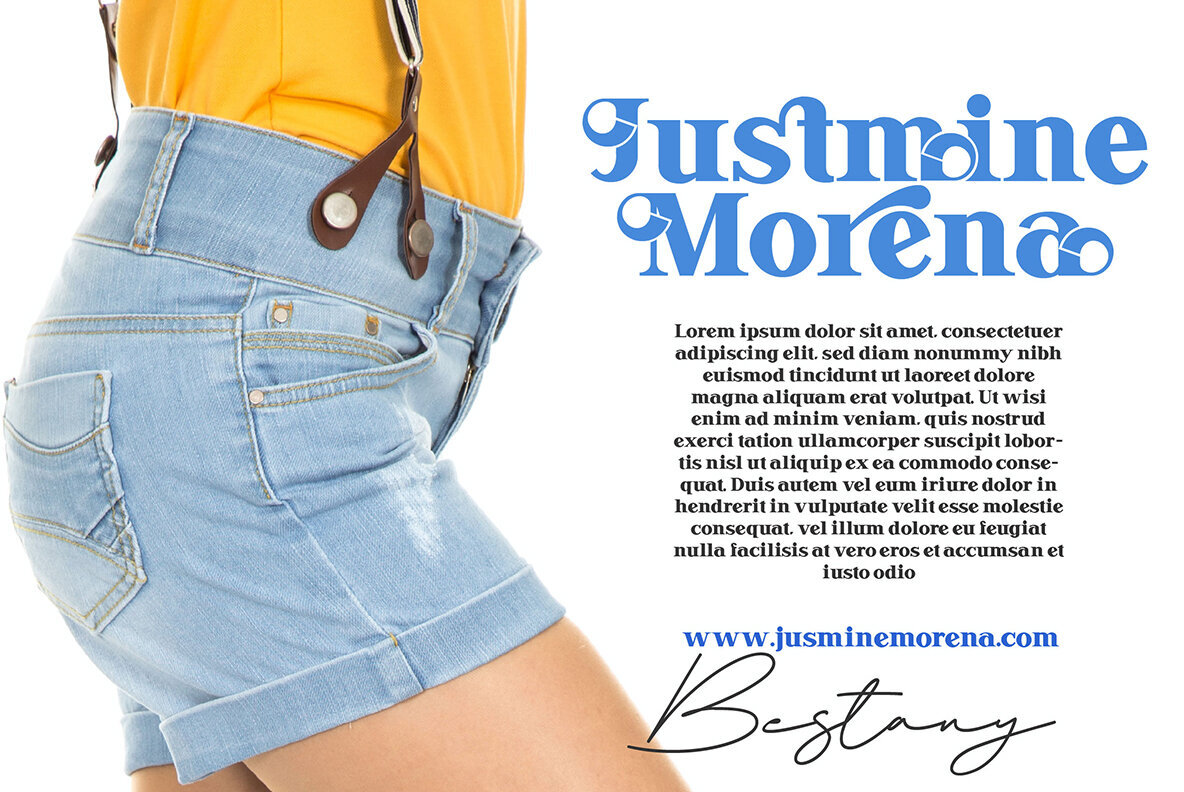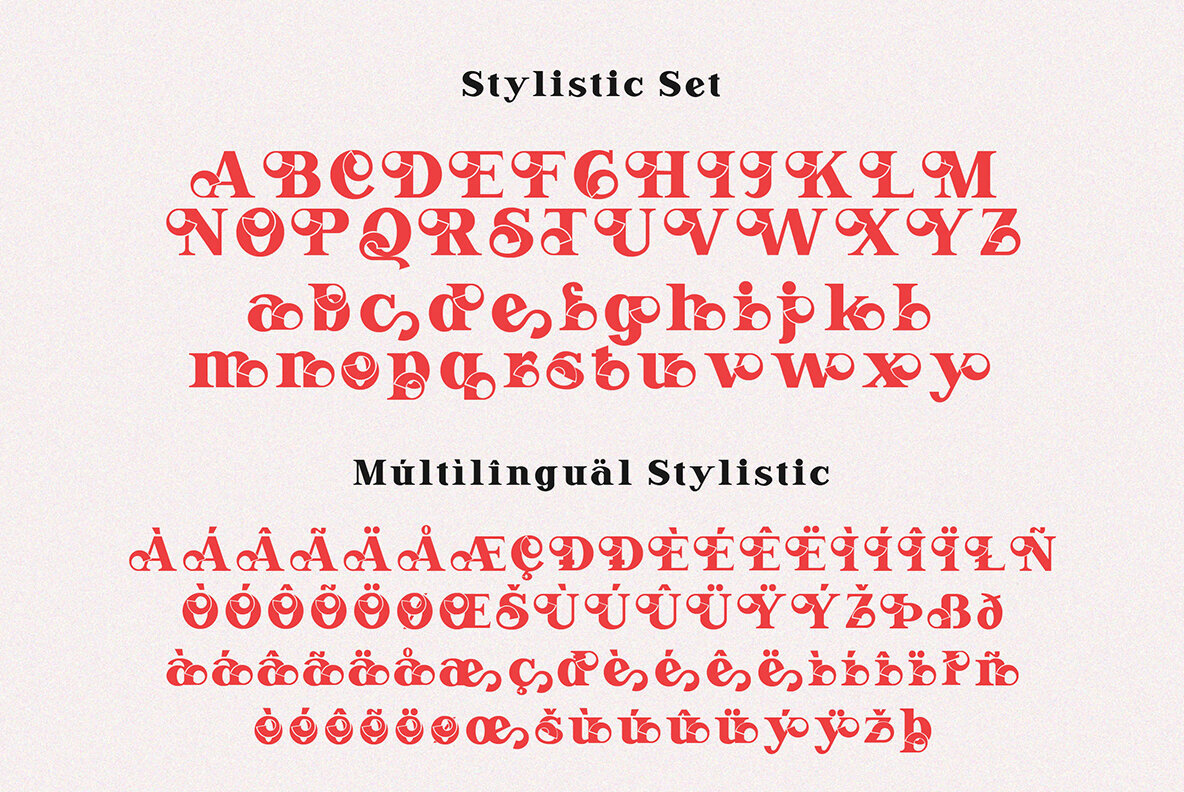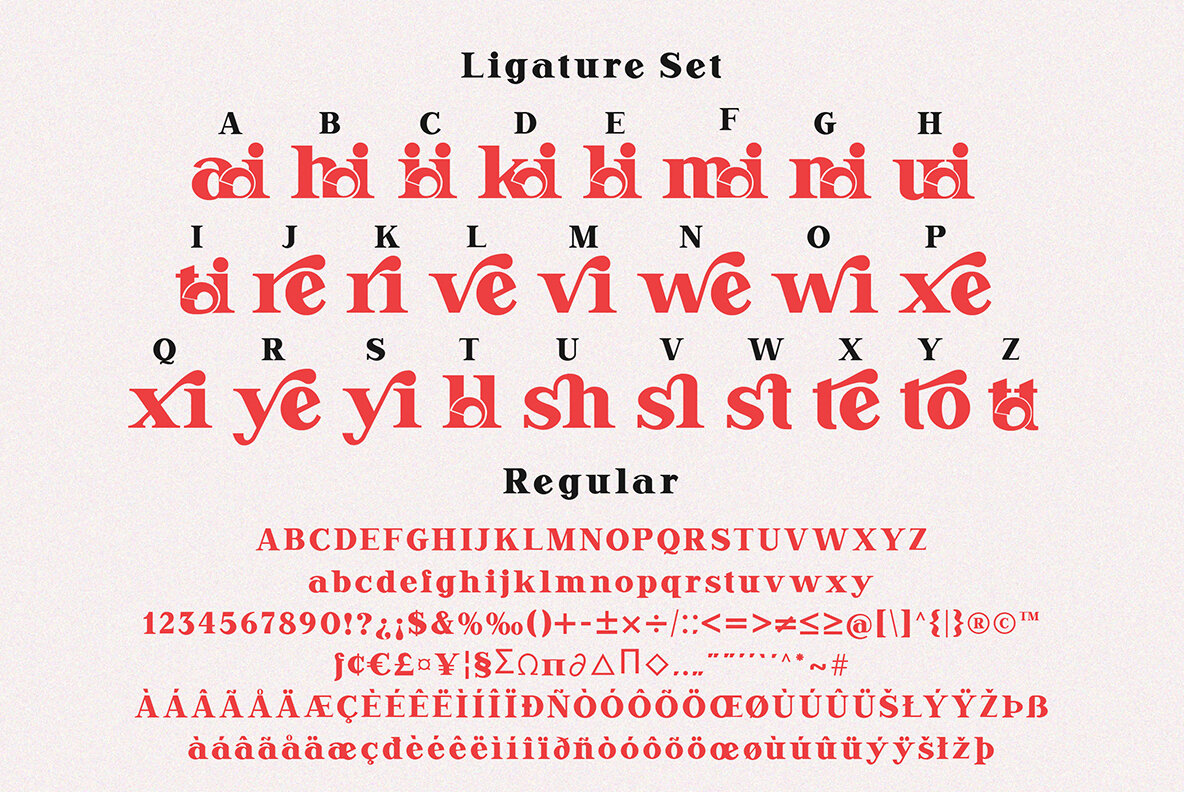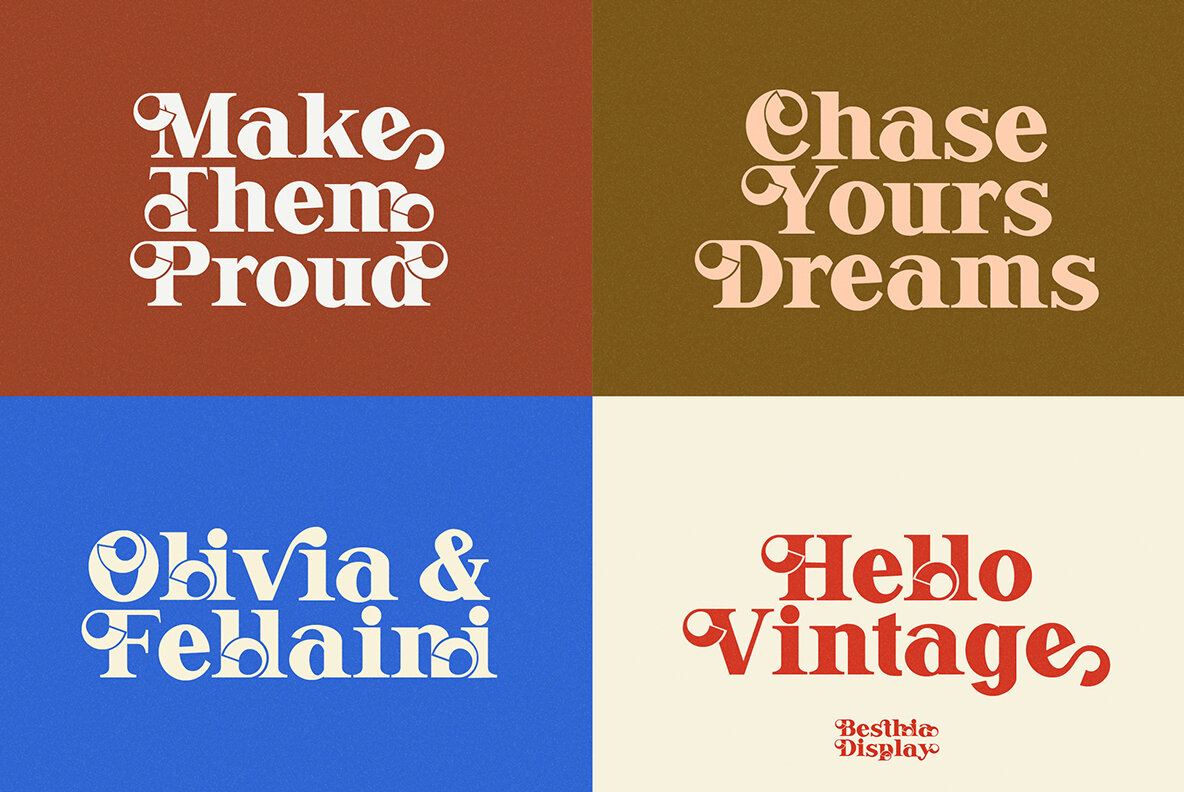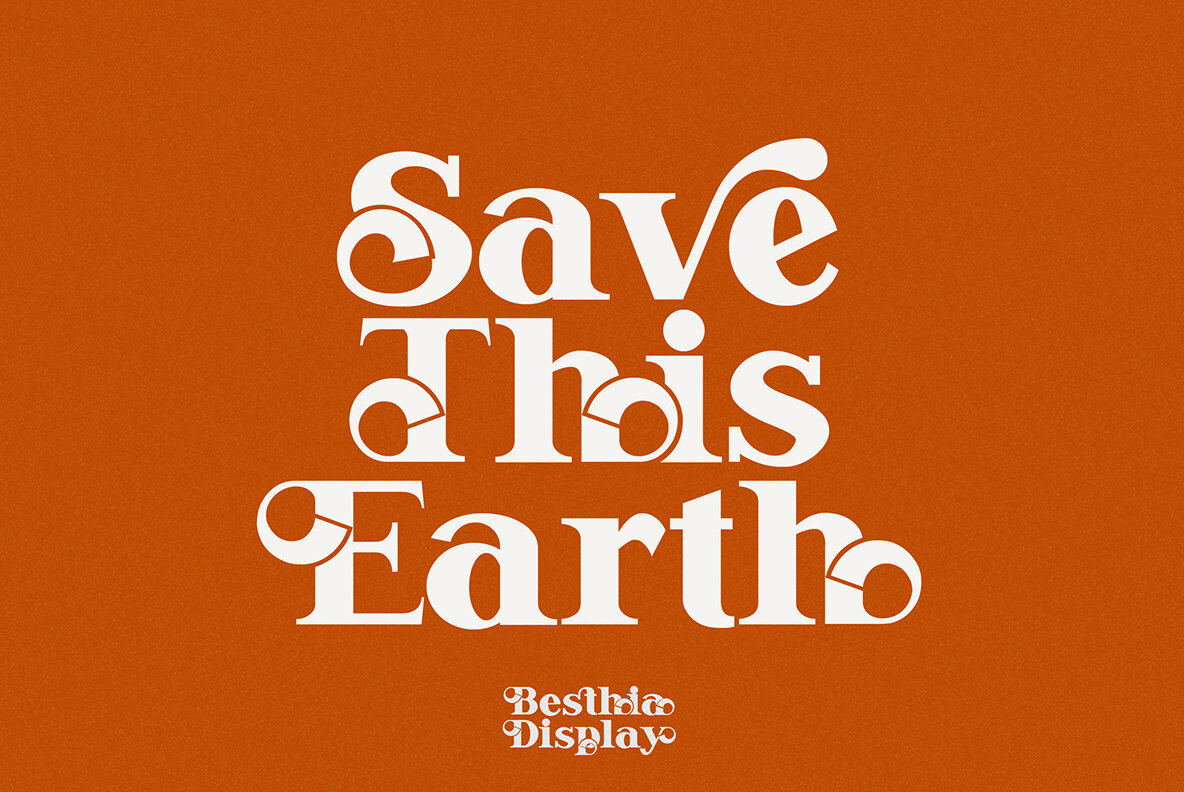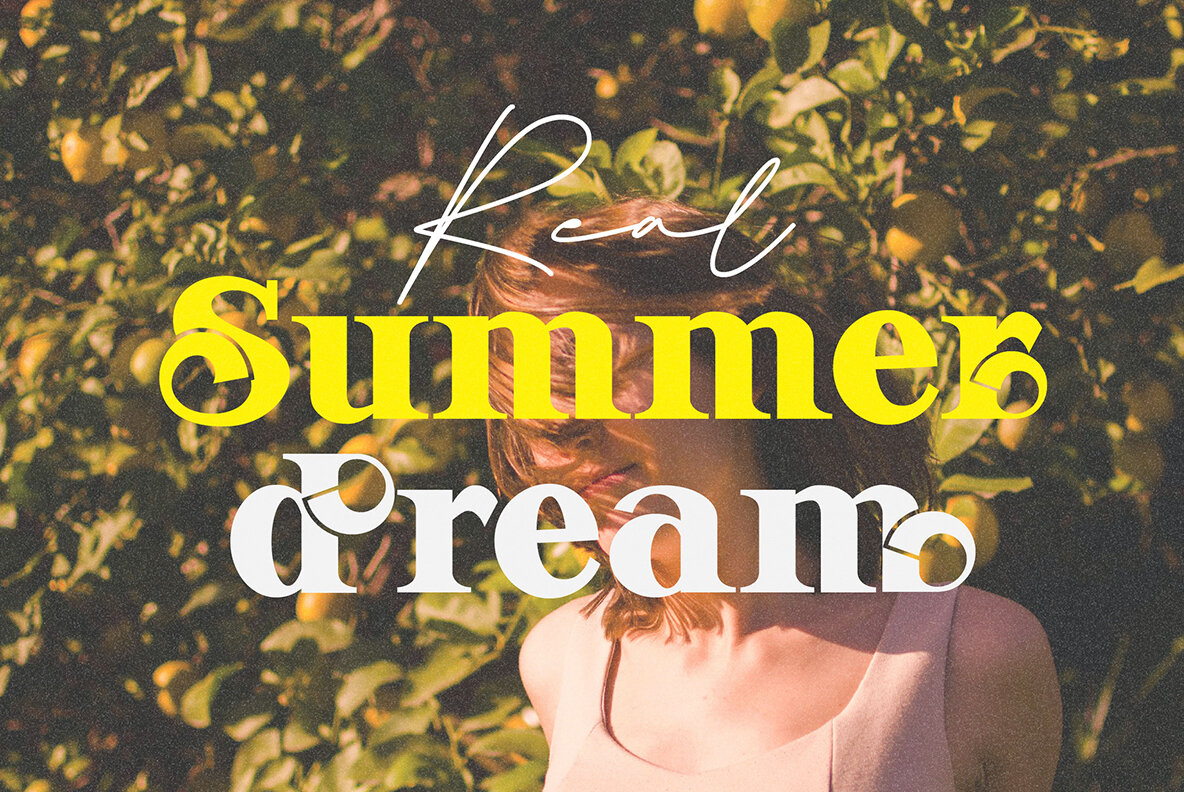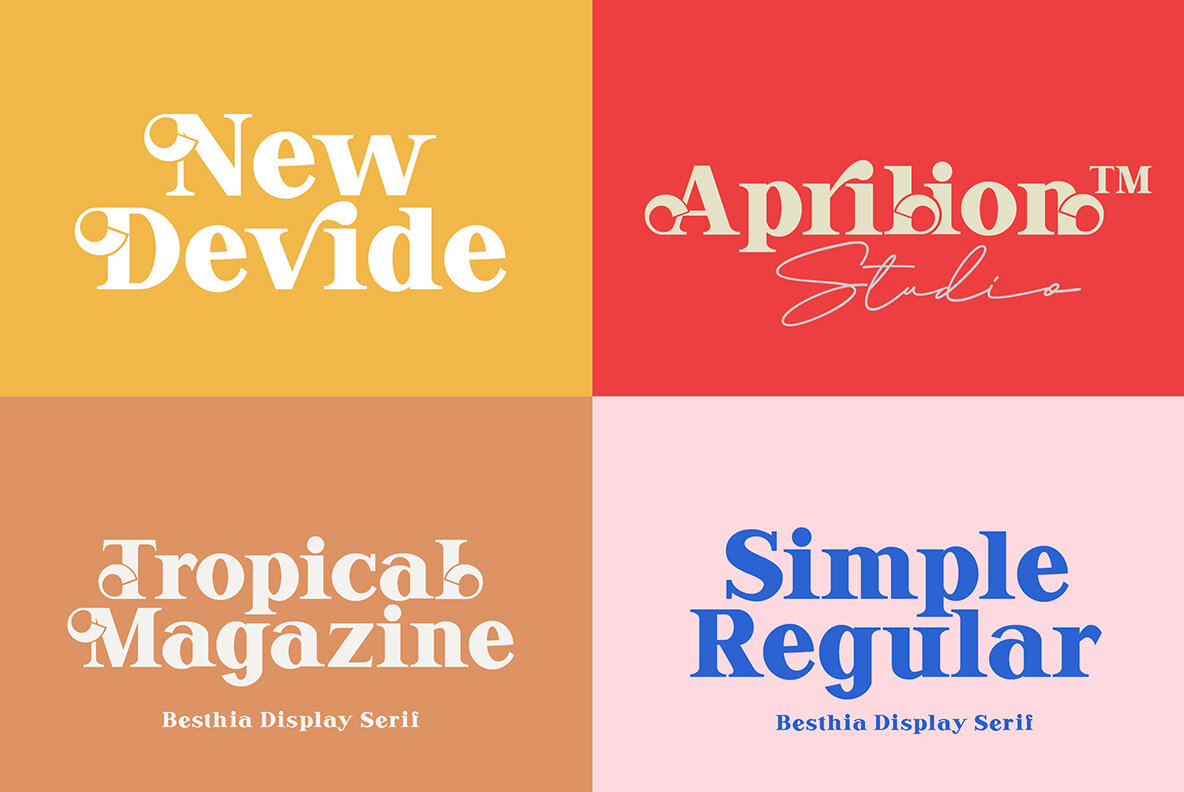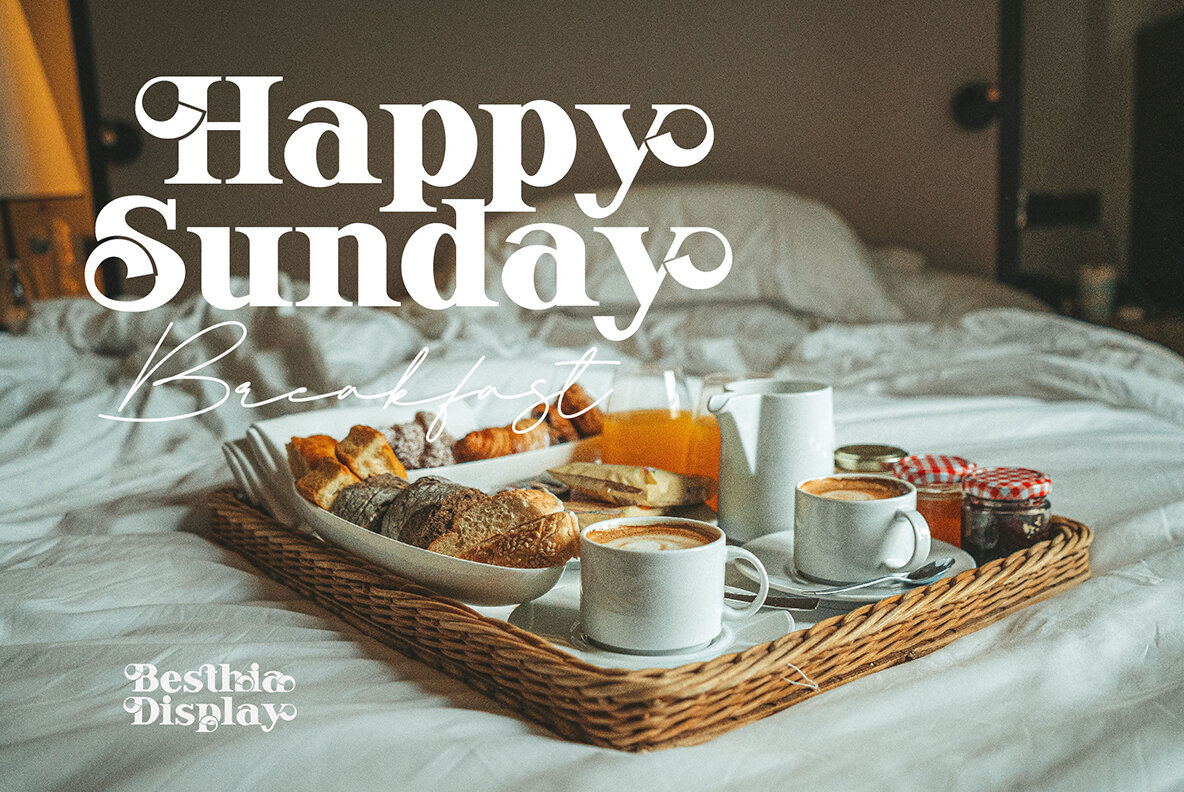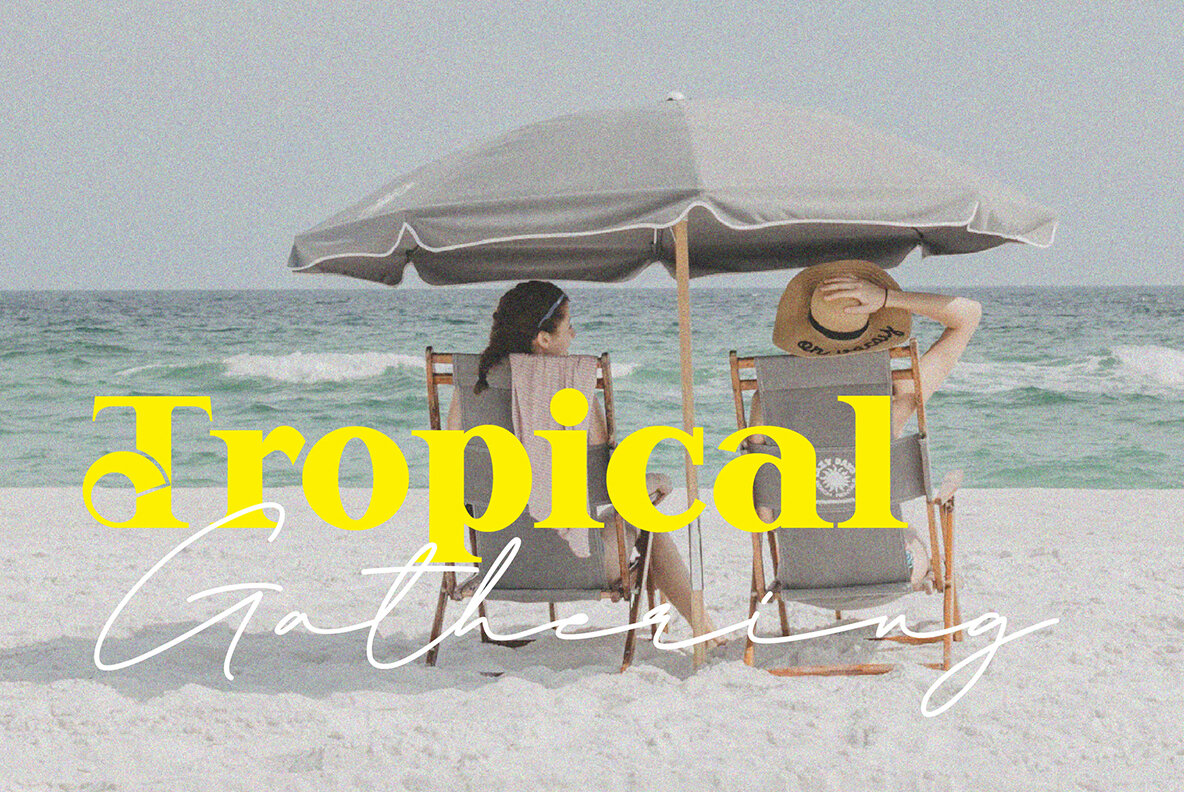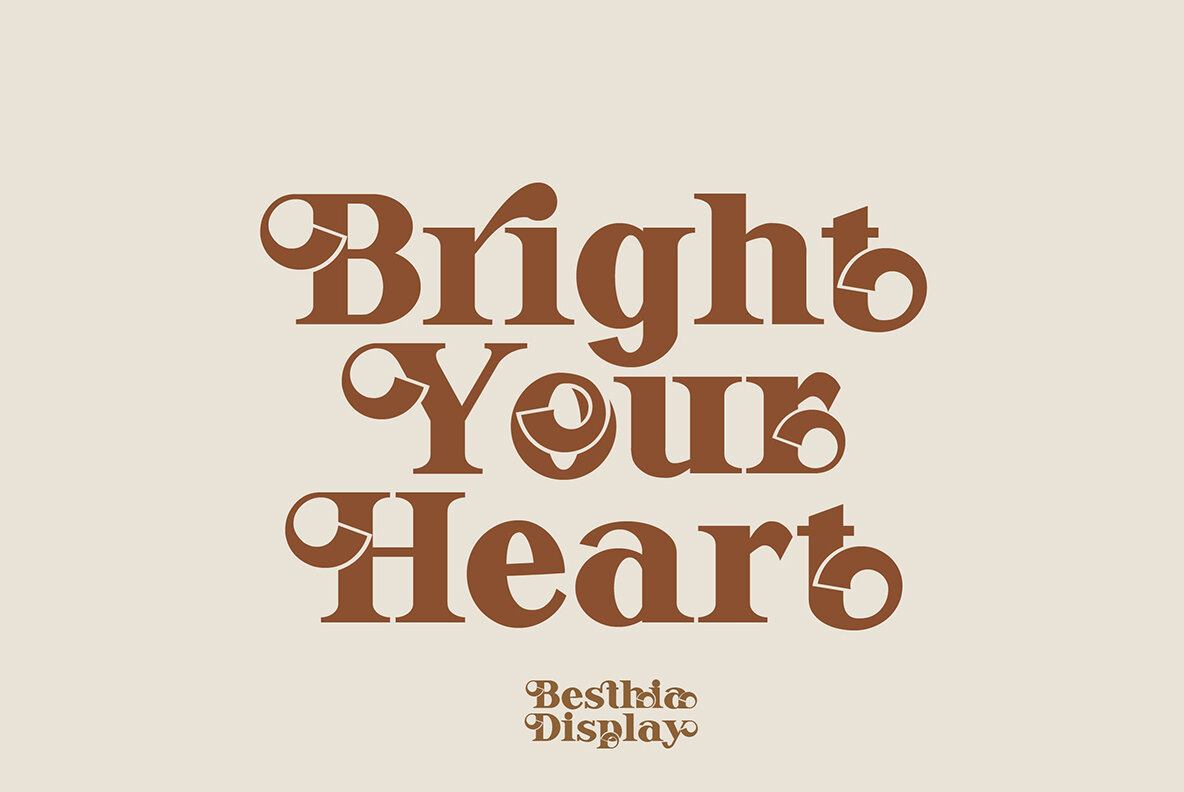
Besthia Display Font
Besthia Display is a vintage-inspired font imbued with a contemporary flair. Its design stands out at display sizes while maintaining readability in smaller text sizes. The font provides easy access to OpenType features, including a wide range of stylistic alternate glyphs and ligatures. Access and implement stylistic alternates and ligatures seamlessly without the need for software that supports OpenType. We've designed them for straightforward usability, accommodating any creative needs effortlessly. Perfectly crafted for headlines, titles, and other short texts, Besthia Display excels in various applications, such as advertising, vintage mood boards, branding, logotypes, packaging, titles, editorial design, and both modern and vintage projects.Besthia Display: Vintage Charm with Modern Elegance